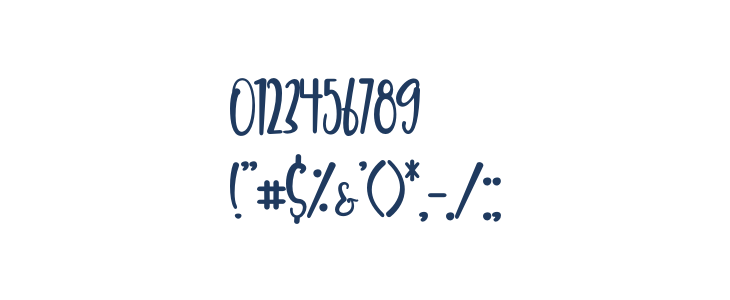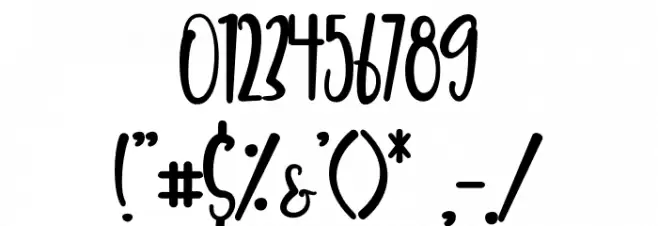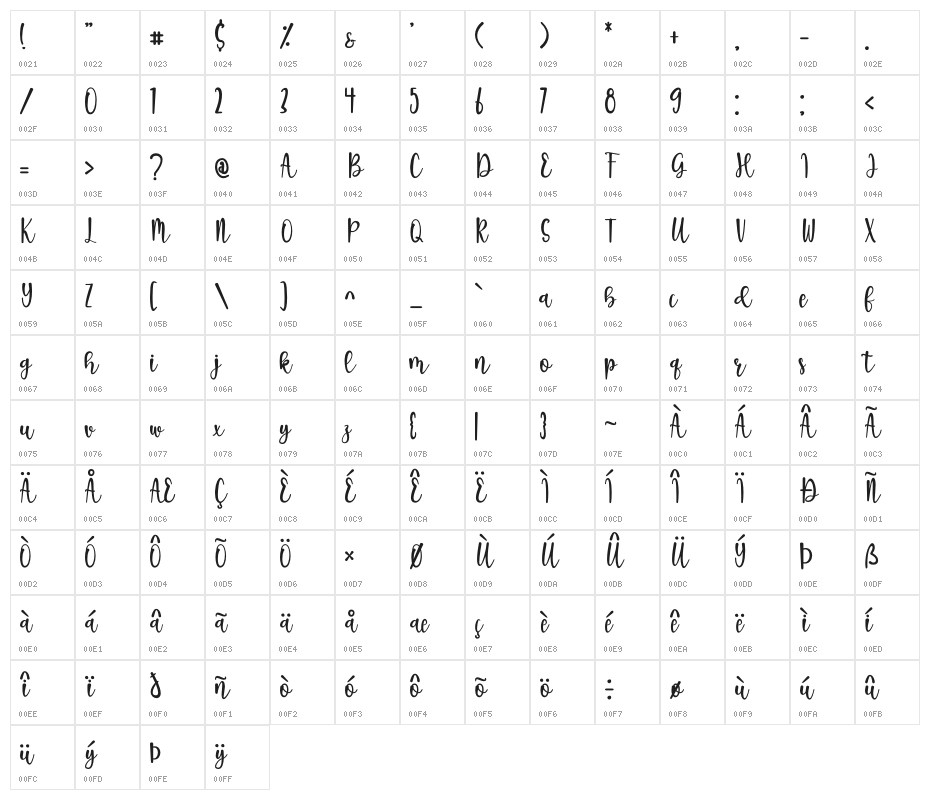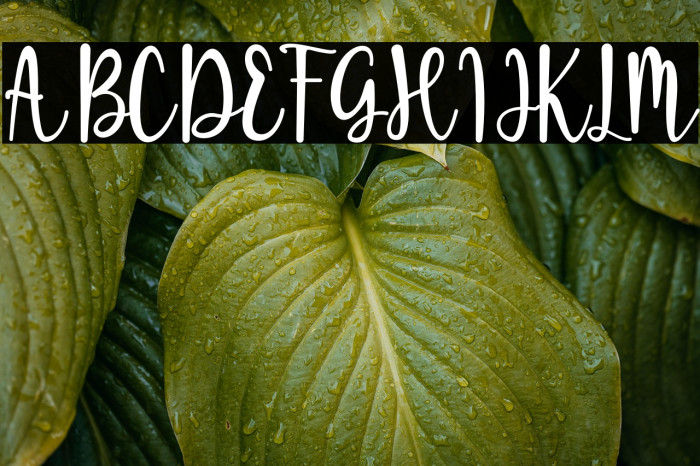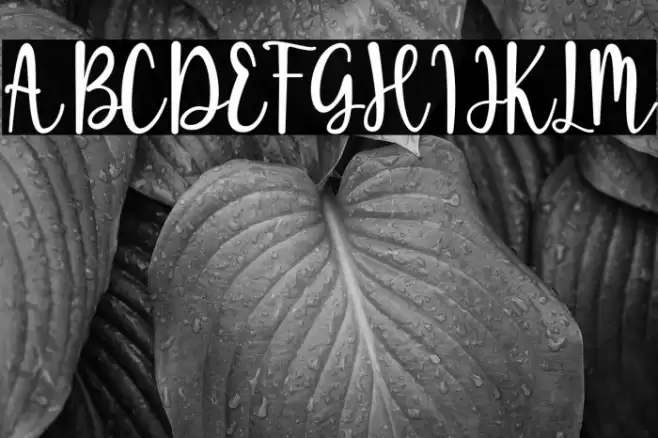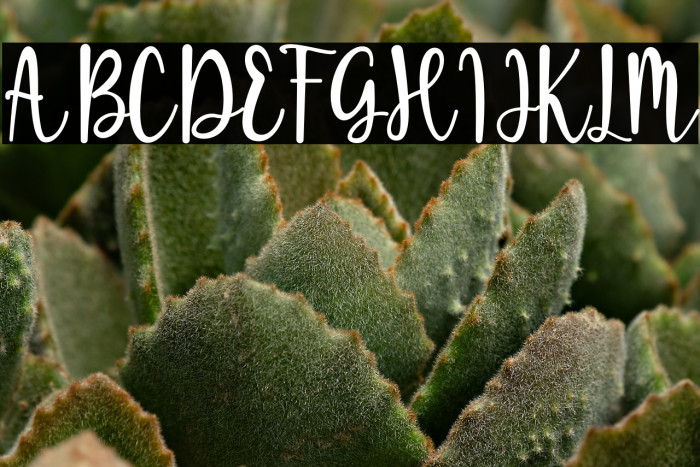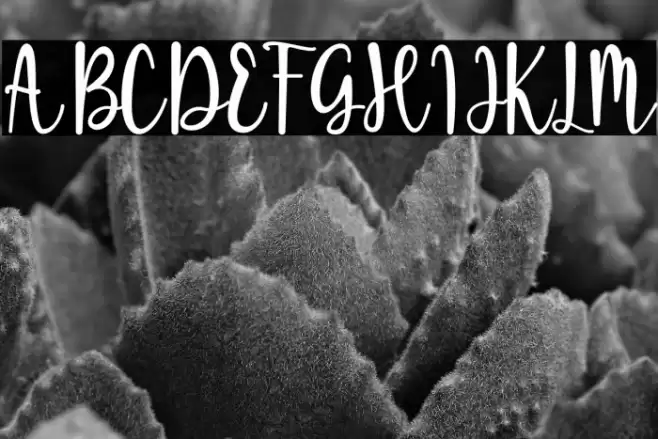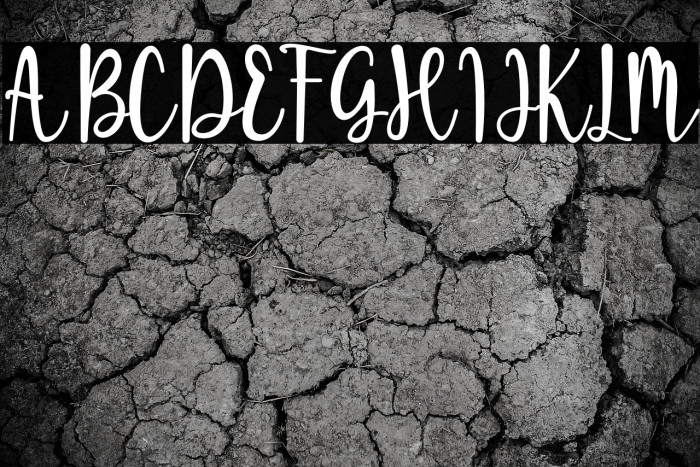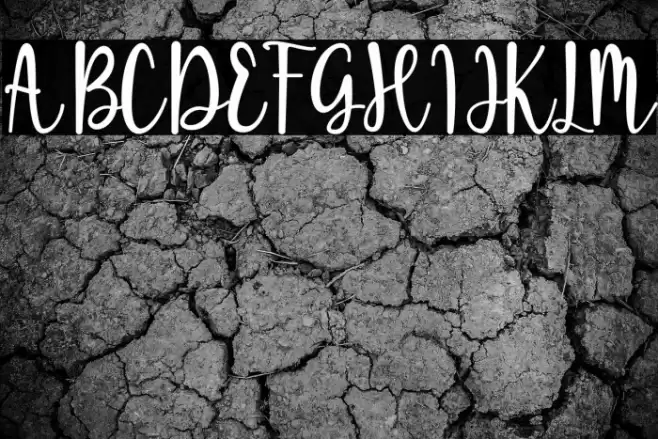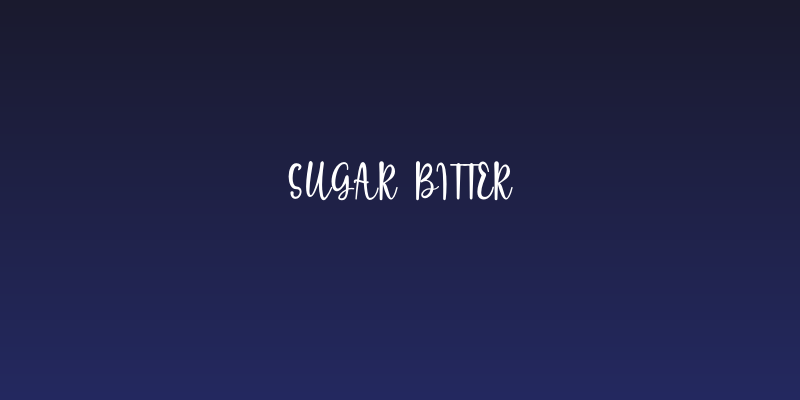
Sugar Bitter Font
Sugar Bitter Description
This font features a playful and whimsical script style with a handwritten feel. The characters are fluid and connected, giving a sense of movement and energy. The uppercase letters are bold and slightly elongated, while the lowercase letters maintain a consistent flow with rounded edges. The numerals are clear and distinct, matching the overall style of the alphabet. Special characters are creatively designed, adding to the font's charm. This font is perfect for projects that require a personal touch or a casual, friendly vibe.
| Use Case | Logos, Invitations, Social Media Graphics |
| Proposed Projects | Ideal for greeting cards, invitations, logos, and social media graphics. |